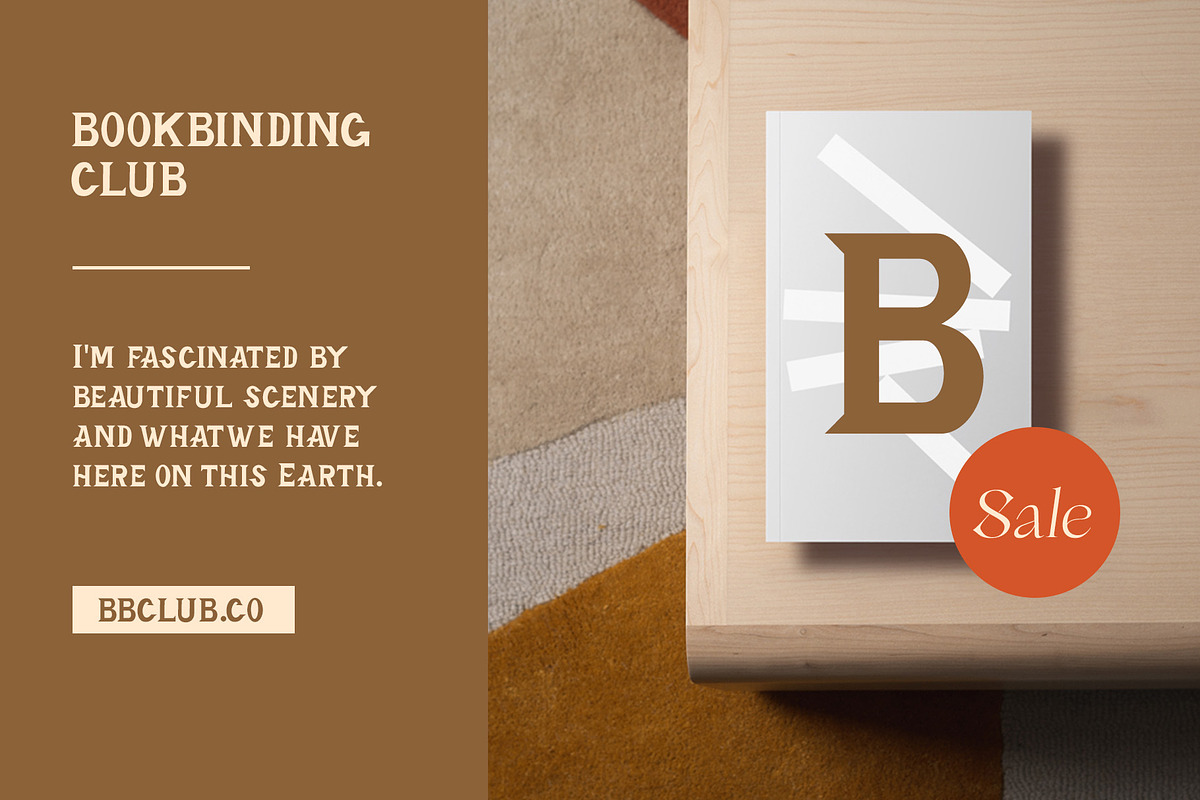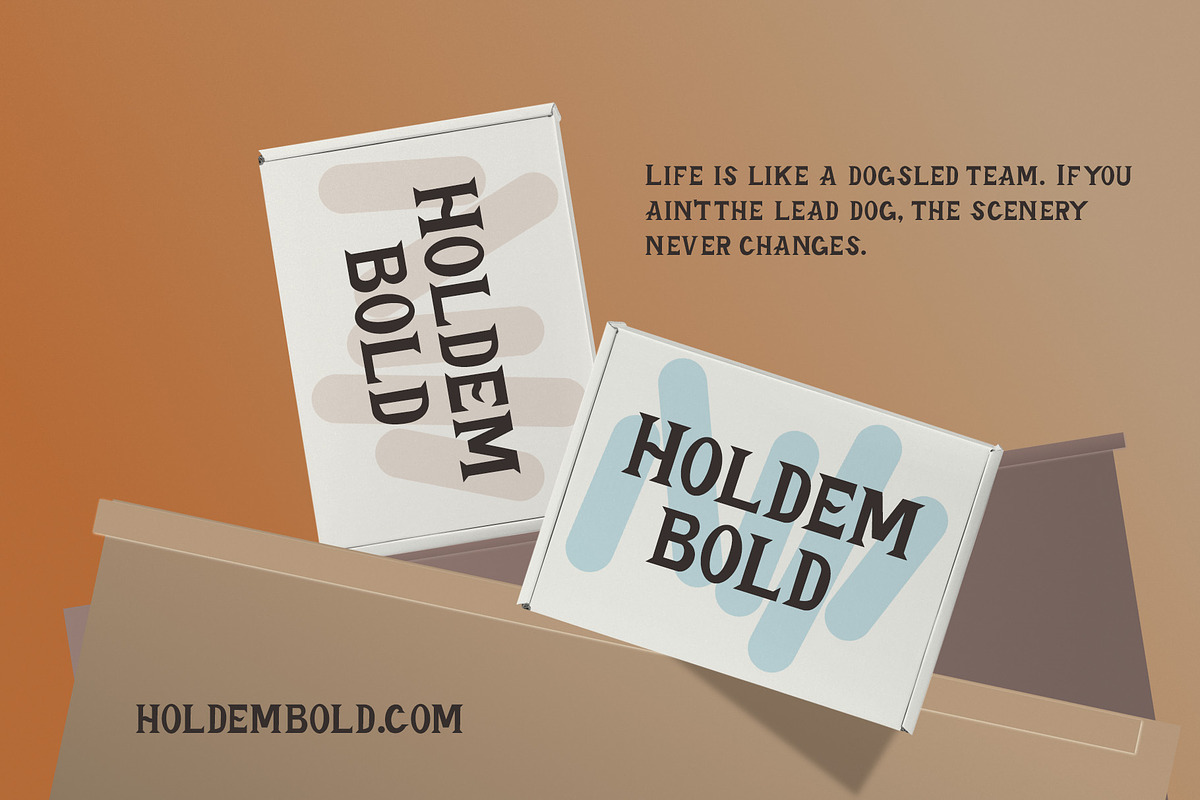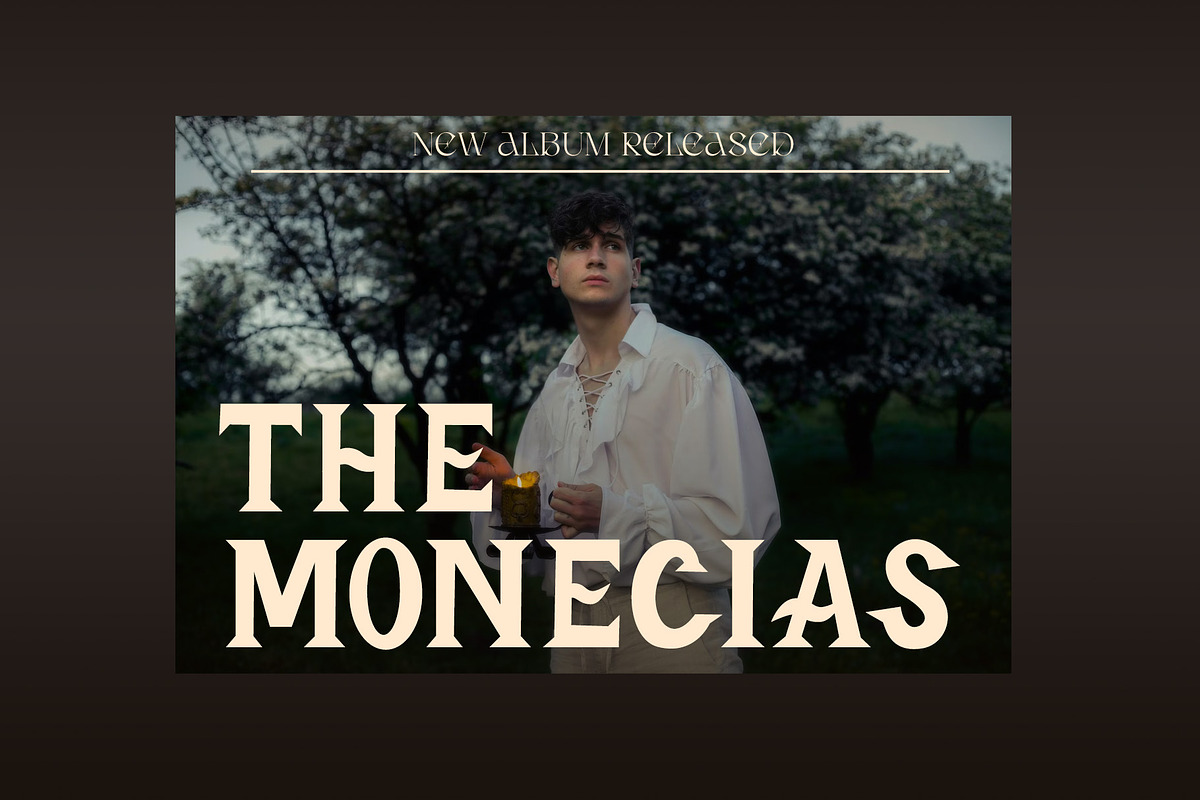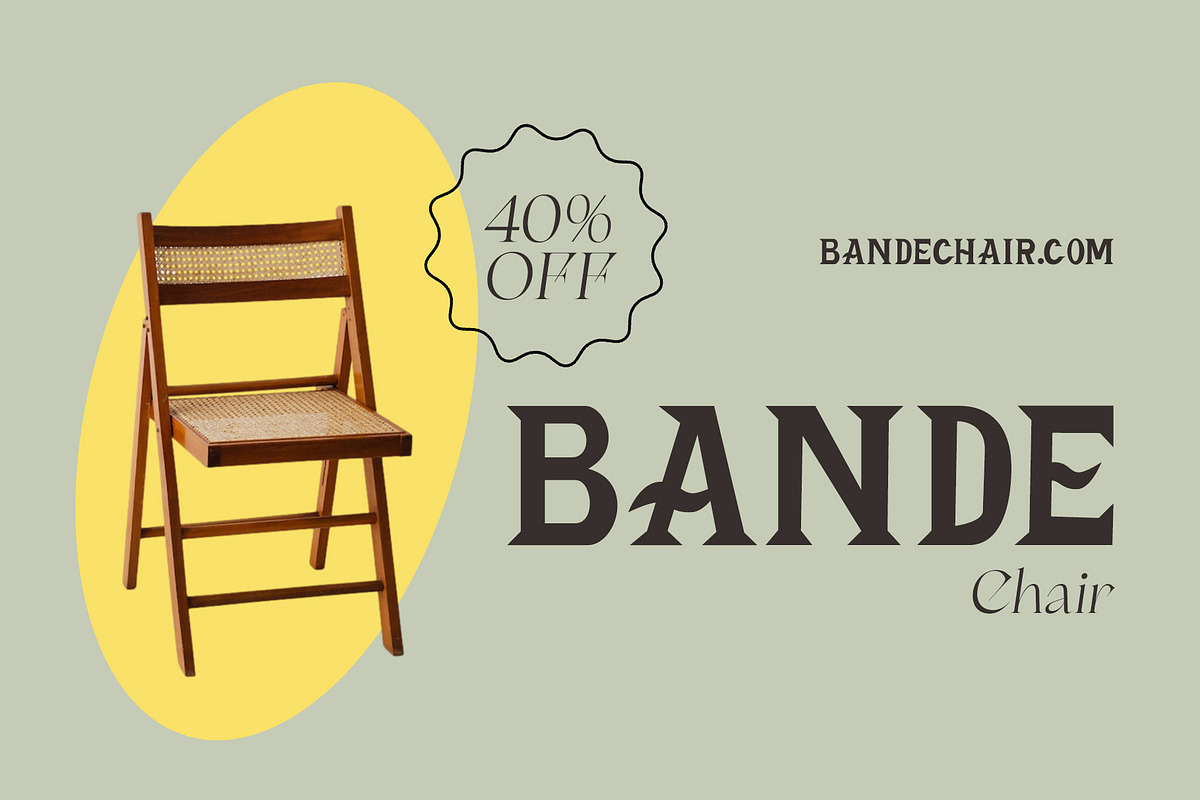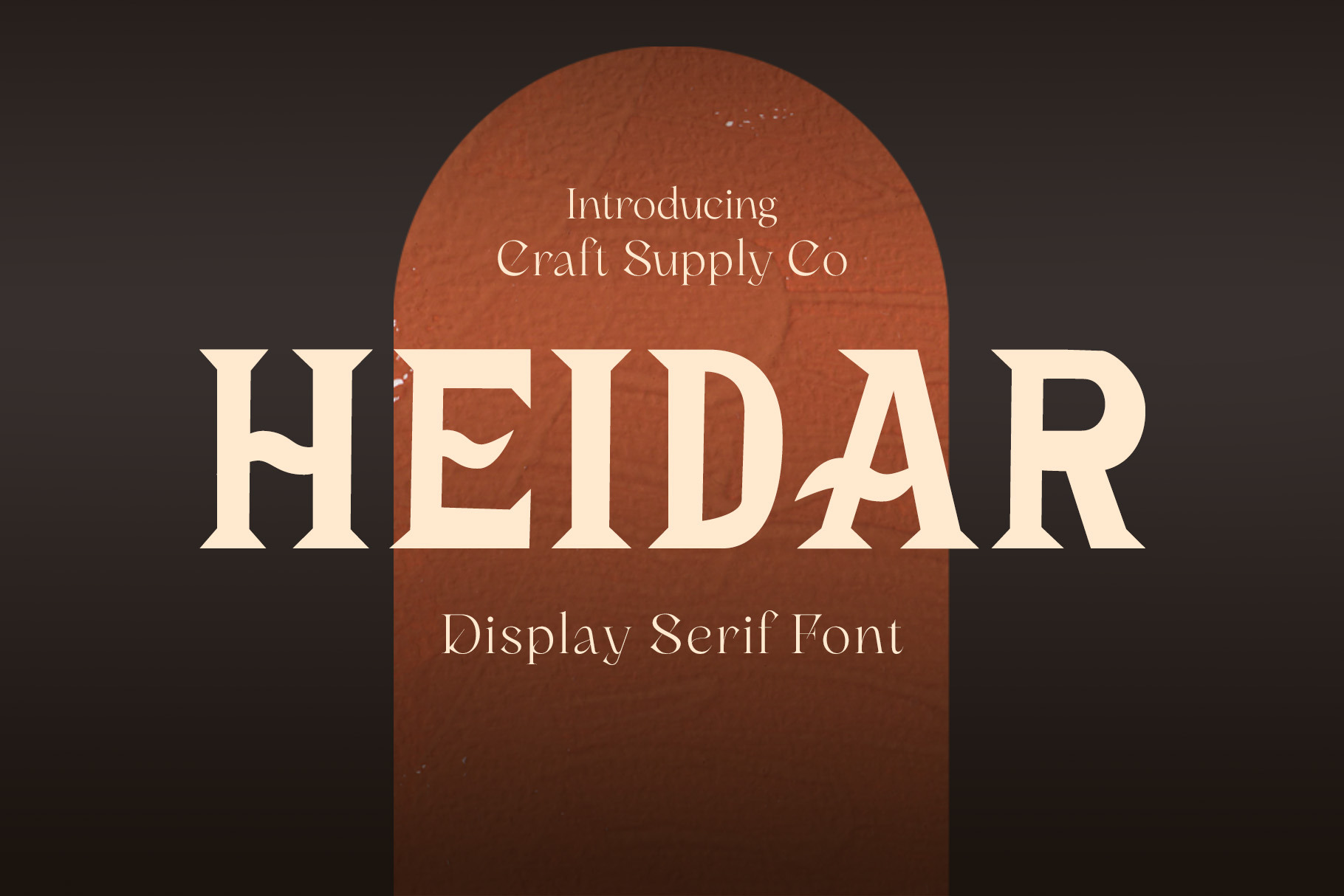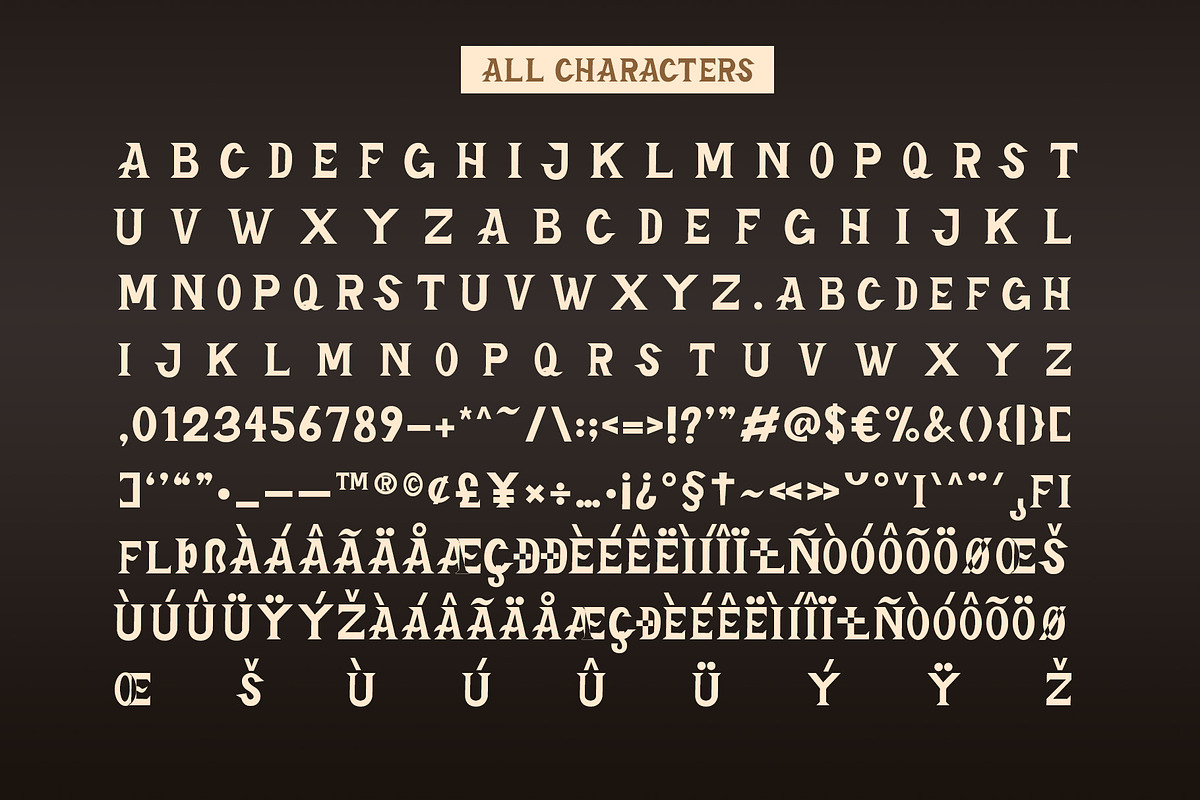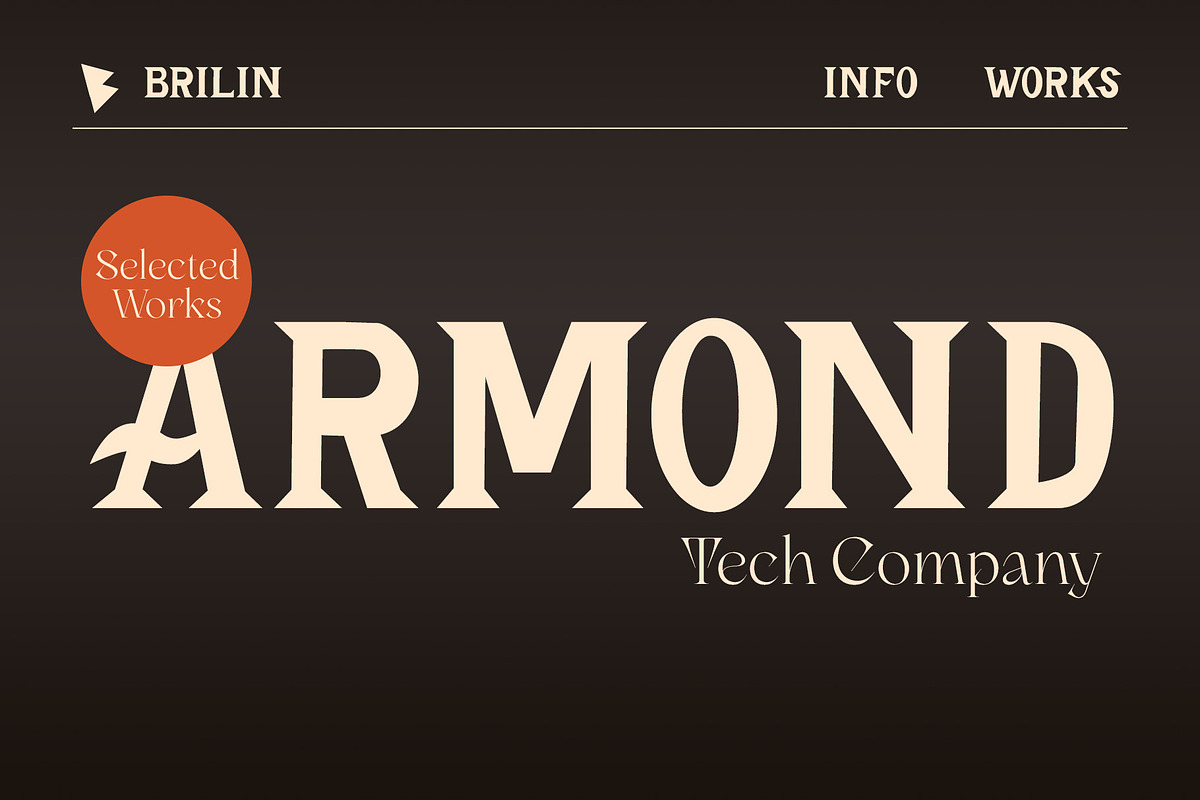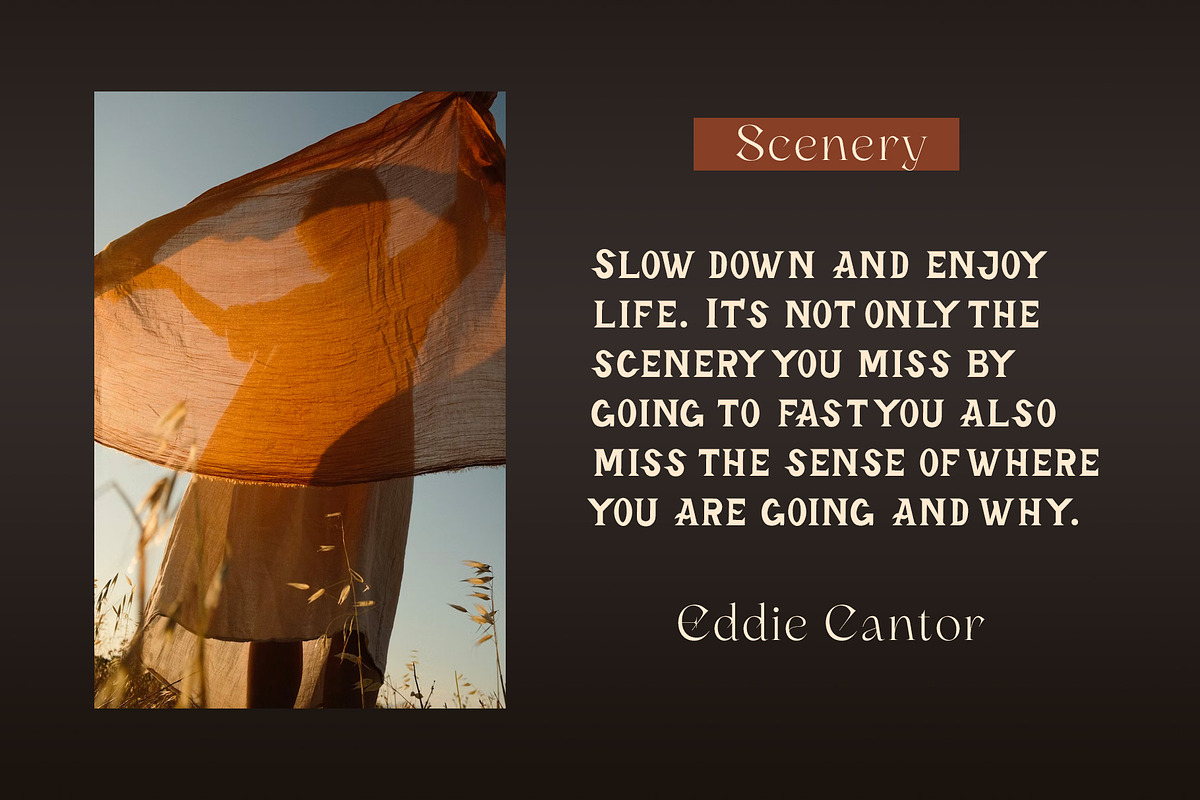
Heidar - Display Typeface
Unveil the Bold Elegance Serif Font – Where letters stand strong, strokes exude confidence, and design speaks with authority. Elevate your creations with this typographic powerhouse that turns words into captivating stories.
This typeface is ideal for greeting card, packaging, brand identity, poster, or any purpose to make your art/design project look eye catching and trendy. Feel free to play with this typeface!